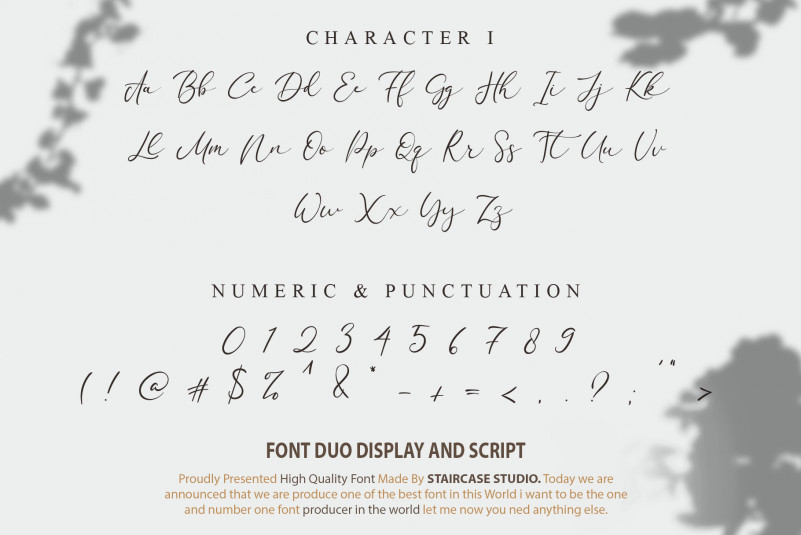
Mayree Griffith Handwritten Font
Mayree Griffith is a new modern script font with an irregular baseline. Trendy and feminine style. it looks lovely on wedding invitations, thank you cards, quotes, greeting cards, logos, business cards and more.